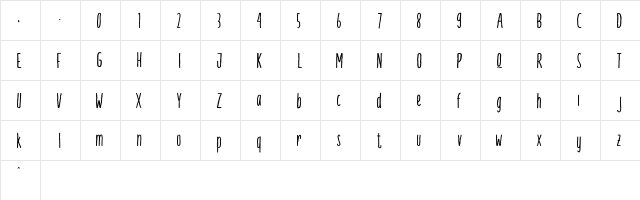
Palamia demo Font Preview
| Foundry | Farul Arjianto |
| Designer | Farul Arjianto |
Design Context for Palamia demo Typeface
Palamia demo offers clean, dependable letterforms without strong stylistic allegiance, making it a practical choice for designers who need flexibility.